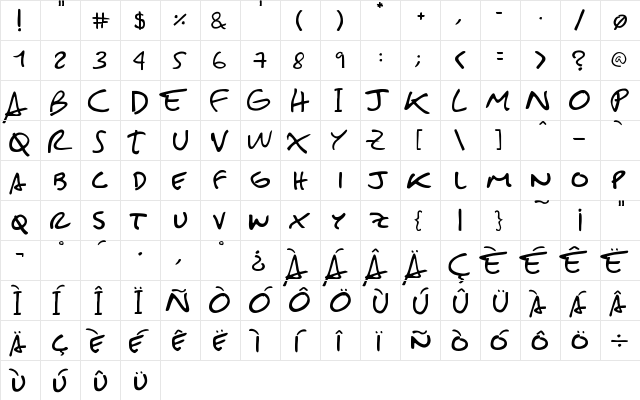
SebastiᮠFont Regular
Design Context for SebastiᮠFont Typeface
SebastiᮠFont is a composed and adaptable typeface that performs quietly and consistently across a wide range of design contexts.